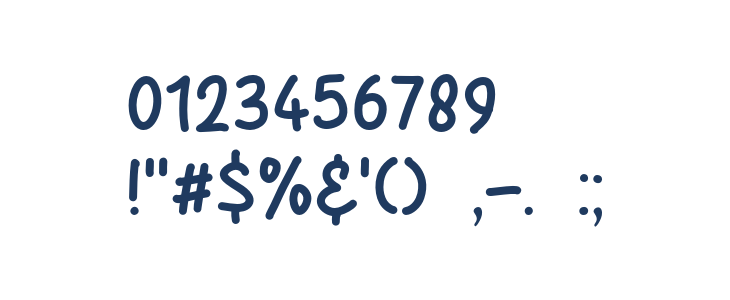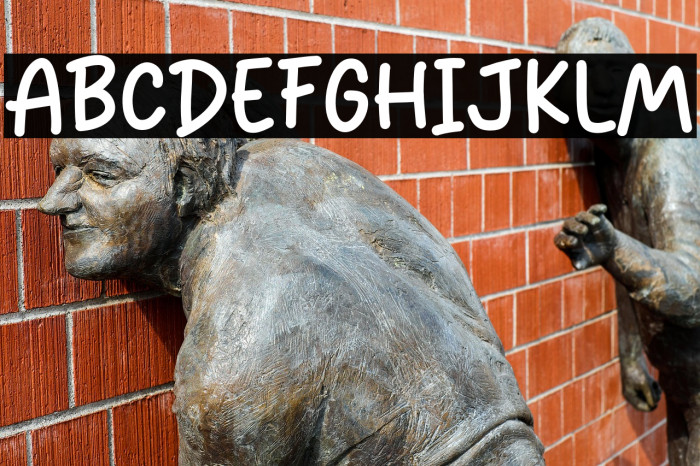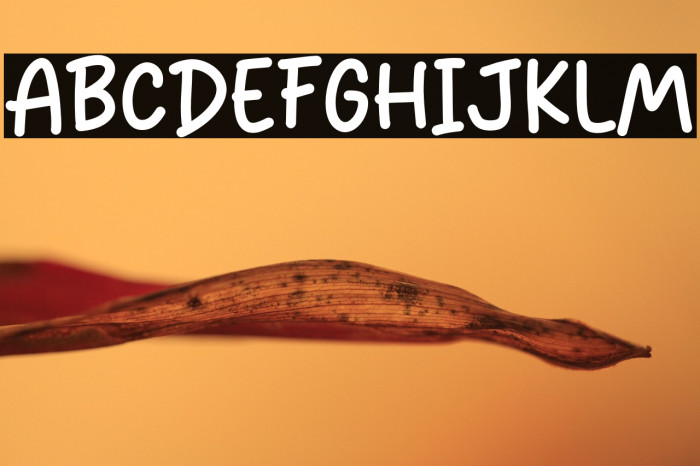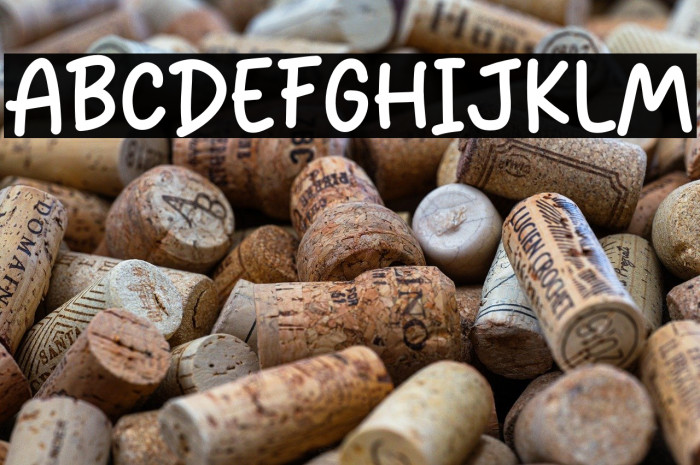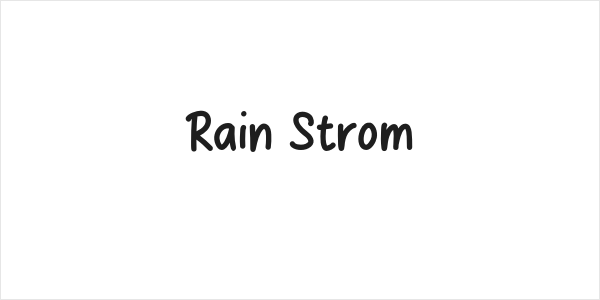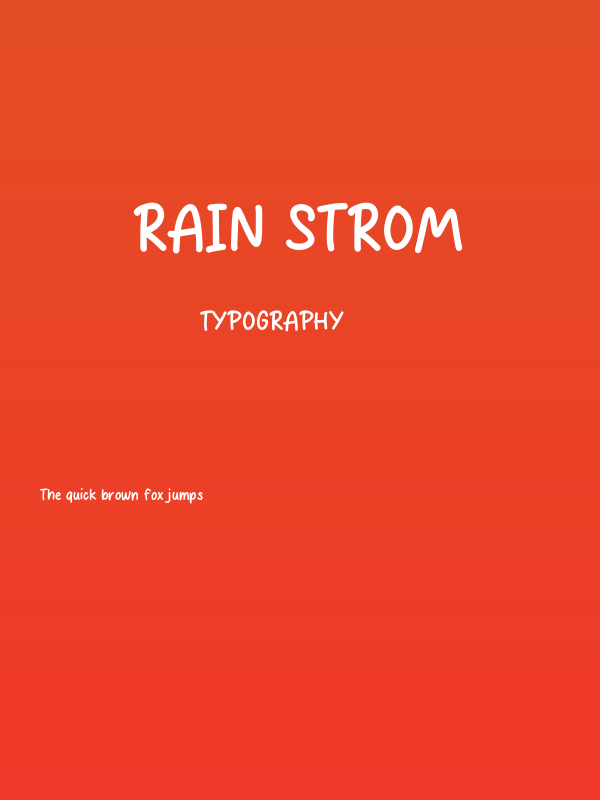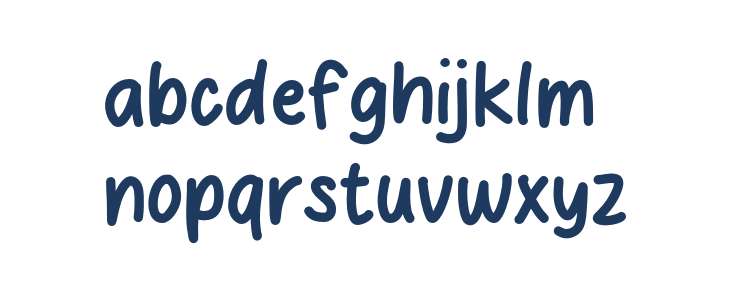
Rain Strom Font
Rain Strom Description
This playful and energetic font features a handwritten style that exudes a sense of casual fun and creativity. The letters are bold and rounded, with a slightly irregular baseline that adds to its informal charm. The characters are well-spaced, ensuring readability while maintaining a lively appearance. The font includes a full set of uppercase and lowercase letters, numbers, and a variety of special characters, making it versatile for different design needs. Its thick strokes and consistent weight give it a strong presence, perfect for catching attention.
| Proposed Projects | Ideal for children's books, playful branding, greeting cards, and creative posters. |